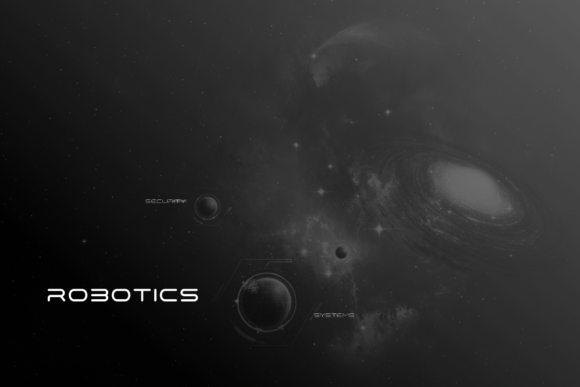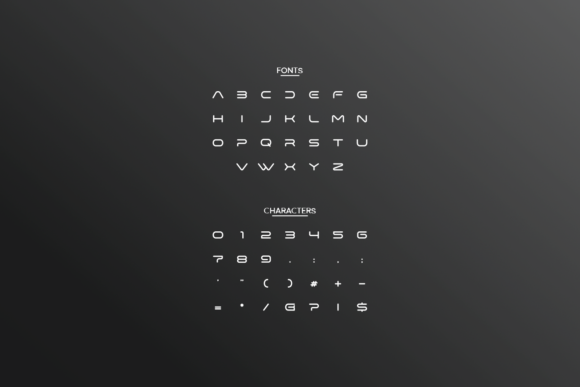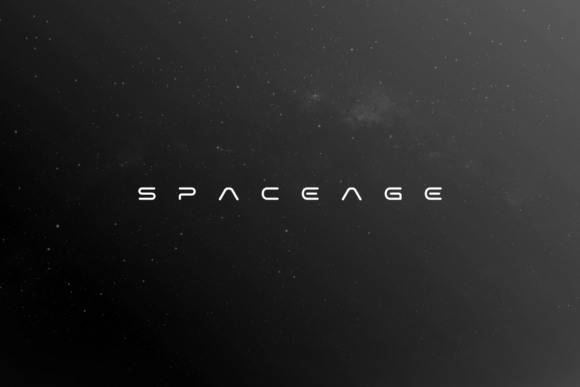
The Futuristic Fandore Font: A Designer’s Dream Come True
I’ll never forget the time I was working on a futuristic sci-fi project, and I just couldn’t find the right font to bring my vision to life. My client wanted something that screamed “cutting-edge technology” and “innovation,” but everything I tried looked either too bland or too over-the-top. That’s when I stumbled upon the Fandore font, and let me tell you, it was a game-changer! 🚀
First Impressions: A Love Affair with Fandore
Fandore is a futuristic font that embodies the sleek, high-tech aesthetic we see in logos, sci-fi movies, games, and gadgets. Its minimalist style and unique letterforms make it a perfect choice for logos, labels, posters, packaging, books, movies, presentations, games, and much more!
What I Love About Fandore ✨
- ✅ Unique and distinctive letterforms that will make your design stand out
- ✅ Elegant touches that give your design a sophisticated, high-tech look
- ✅ Versatile and can be used for a wide range of projects, from logos to presentations
- ✅ Easy to read, even at small sizes
- ⚠️ Limited availability of swashes and ornaments (but this can also be seen as a good thing if you’re looking for a clean, minimalist look)
- ⚠️ May not be the best choice for body text (it’s more suited for headings and titles)
The Backstory of Fandore: Designer Inspiration
Fandore was designed by a team of creatives who wanted to create a font that embodied the futuristic and high-tech aesthetic of modern technology. Inspired by sci-fi movies, games, and gadgets, they crafted a font that is both sleek and sophisticated. The design process involved experimenting with different shapes and forms to create a unique and distinctive look.
| Font Name | Fandore Font |
| Author | Letterna |
Q: What is Fandore font?
A: Fandore is a futuristic font inspired by the visual of technology found in logos, sci-fi movies, games, and gadgets.
Q: What can I use Fandore for?
A: Fandore is a versatile font that can be used for a wide range of projects, including logos, labels, posters, packaging, books, movies, presentations, games, and more.
Q: Is Fandore easy to read?
A: Yes, Fandore is designed to be easy to read, even at small sizes.